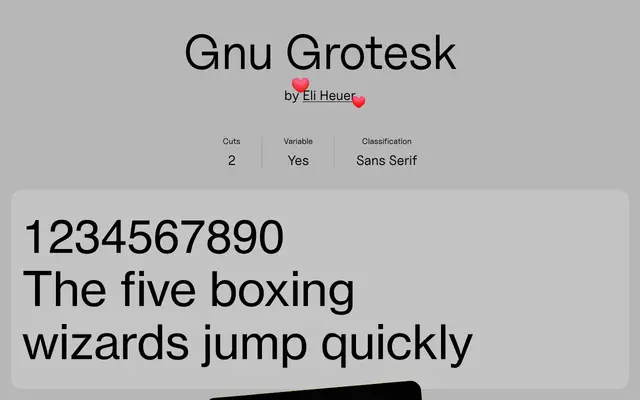
Gnu Grotesk
A free grotesque sans by Eli Heuer, available in two cuts including a variable font version.
Designed by Eli Heuer, Gnu Grotesk is a grotesque sans offered free for both personal and commercial use. It comes in two cuts, one of which is a variable font, giving some flexibility in weight or width across a single file. Licensing is unspecified beyond 'free', so confirming terms directly with the creator is advisable before deployment.
Listed under Sans Serif by the foundry; the name and visual genre suggest a grotesque classification, consistent with the broad grotesque tradition.